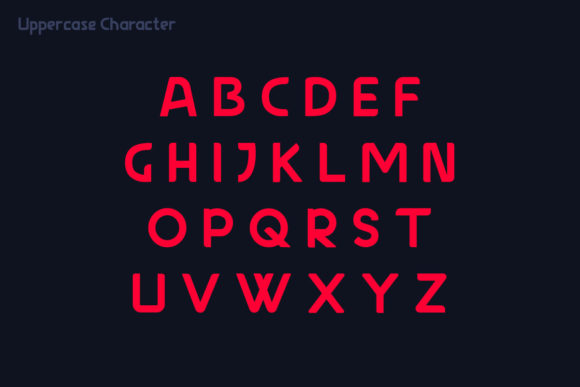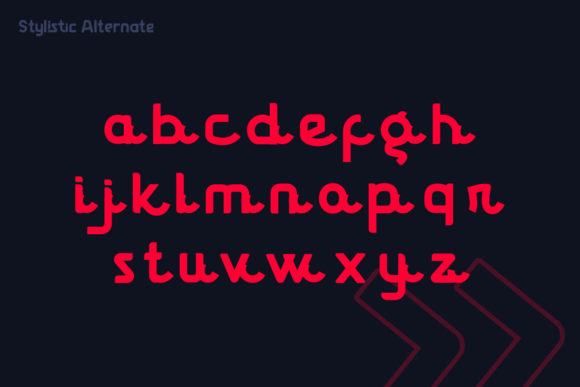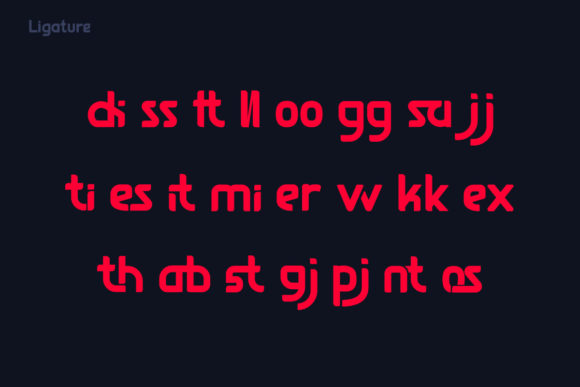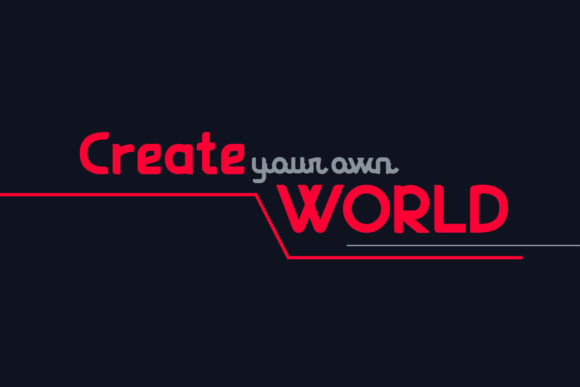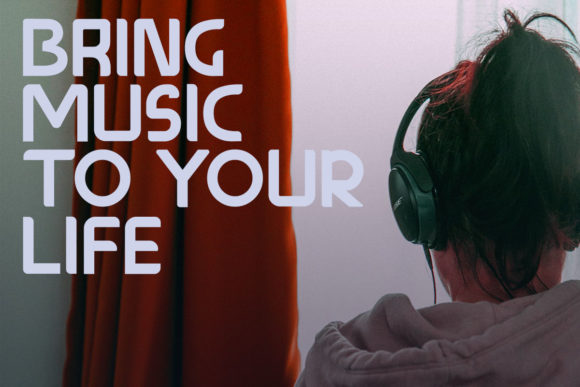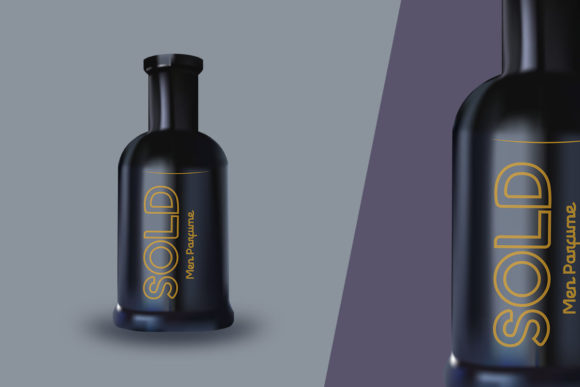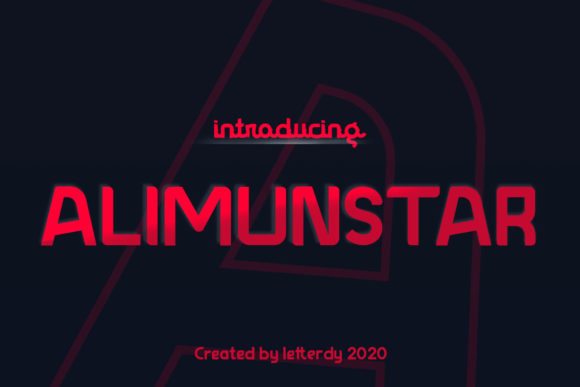
Introducing Alimunstar Font: The Ultimate Display Font for Creative Projects
Are you tired of using the same old fonts for your creative projects? Do you want to make your designs stand out from the crowd? Look no further than Alimunstar Font, an authentic and unique display font that’s sure to take your work to the next level. In this article, we’ll explore the features and benefits of Alimunstar Font, and show you how it can elevate your designs and make them shine.
What is Alimunstar Font?
Alimunstar Font is a carefully crafted display font that’s designed to make a statement. With its unique and authentic style, this font is perfect for designers and crafters who want to add a touch of personality to their work. Whether you’re creating a logo, a poster, or a social media graphic, Alimunstar Font is the perfect choice.
Key Features of Alimunstar Font
• Unique and Authentic Style: Alimunstar Font has a one-of-a-kind design that’s sure to grab attention.
• Display Font: This font is specifically designed for display purposes, making it perfect for headlines, titles, and other prominent text elements.
• Easy to Read: Despite its unique style, Alimunstar Font is easy to read and understand, making it perfect for a wide range of applications.
• Versatile: Alimunstar Font can be used for a variety of projects, from logos and posters to social media graphics and more.
Benefits of Using Alimunstar Font
So why should you choose Alimunstar Font for your next project? Here are just a few benefits of using this amazing display font:
• Adds Personality to Your Designs: With Alimunstar Font, you can add a touch of personality to your designs and make them stand out from the crowd.
• Increases Visibility: The unique style of Alimunstar Font makes it perfect for grabbing attention and increasing visibility.
• Enhances Creativity: Alimunstar Font is the perfect choice for creative projects, as it allows you to express yourself and showcase your unique style.
• Compatible with a Wide Range of Applications: Whether you’re working on a logo, poster, or social media graphic, Alimunstar Font is the perfect choice.
Tips and Tricks for Getting the Most Out of Alimunstar Font
Here are a few tips and tricks for getting the most out of Alimunstar Font:
• Experiment with Different Sizes and Colors: Alimunstar Font looks great in a variety of sizes and colors, so don’t be afraid to experiment and find the perfect combination for your project.
• Pair it with Other Fonts: Alimunstar Font pairs well with a wide range of other fonts, so try combining it with other fonts to create a unique and interesting look.
• Use it for Headlines and Titles: Alimunstar Font is perfect for headlines and titles, as it’s designed to grab attention and make a statement.
In conclusion, Alimunstar Font is an authentic and unique display font that’s perfect for designers and crafters who want to add a touch of personality to their work. With its easy-to-read design and versatile style, Alimunstar Font is the perfect choice for a wide range of projects. So why wait? Download Alimunstar Font today and start creating stunning designs that stand out from the crowd!